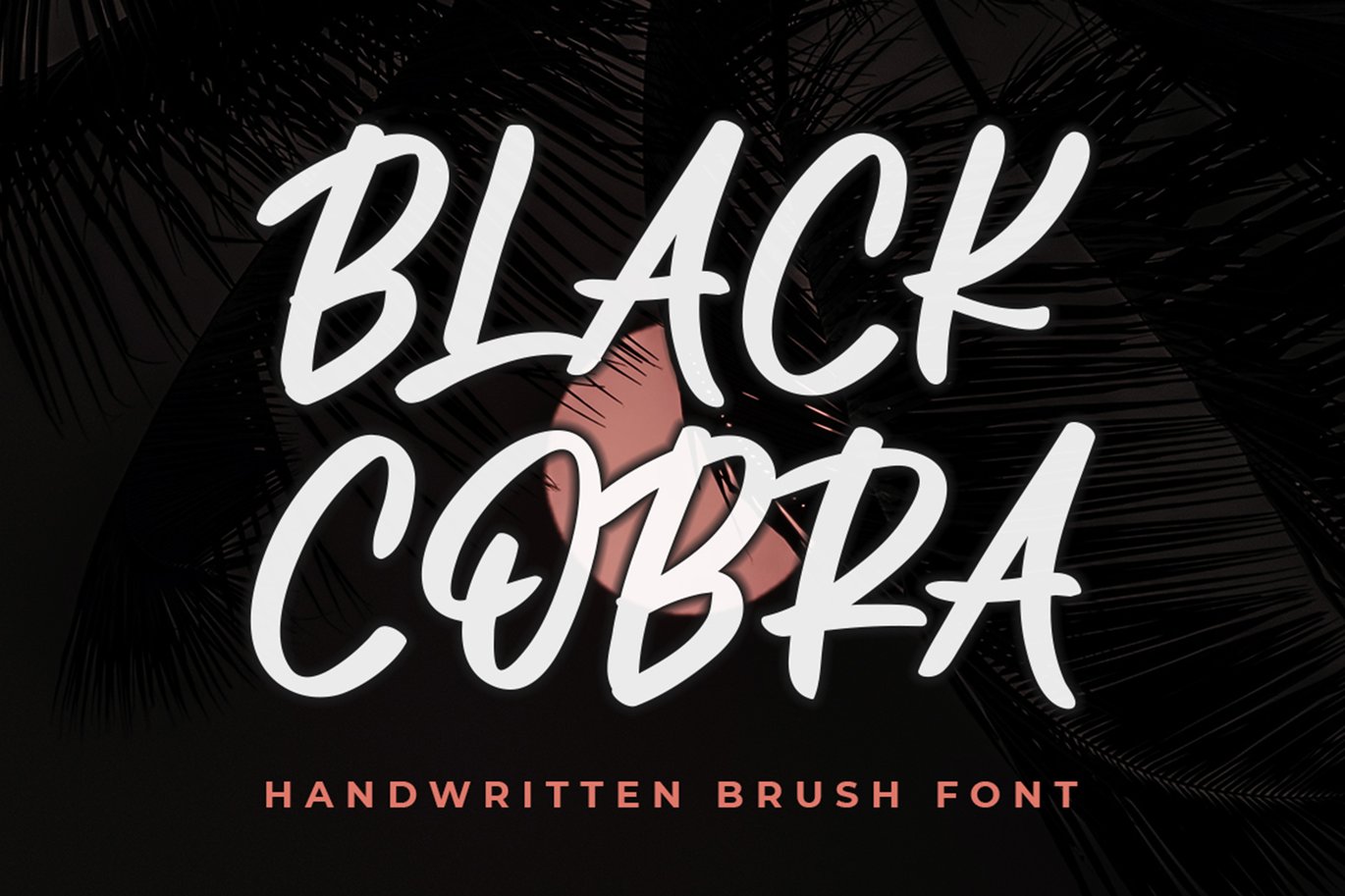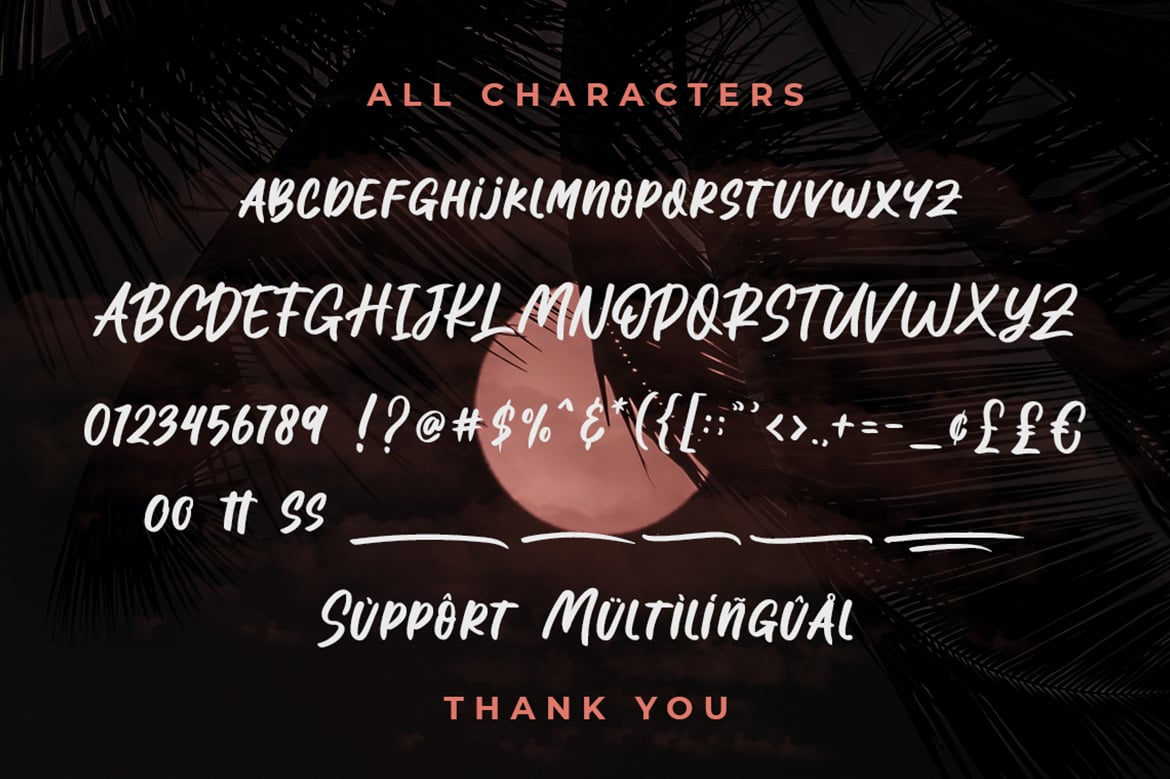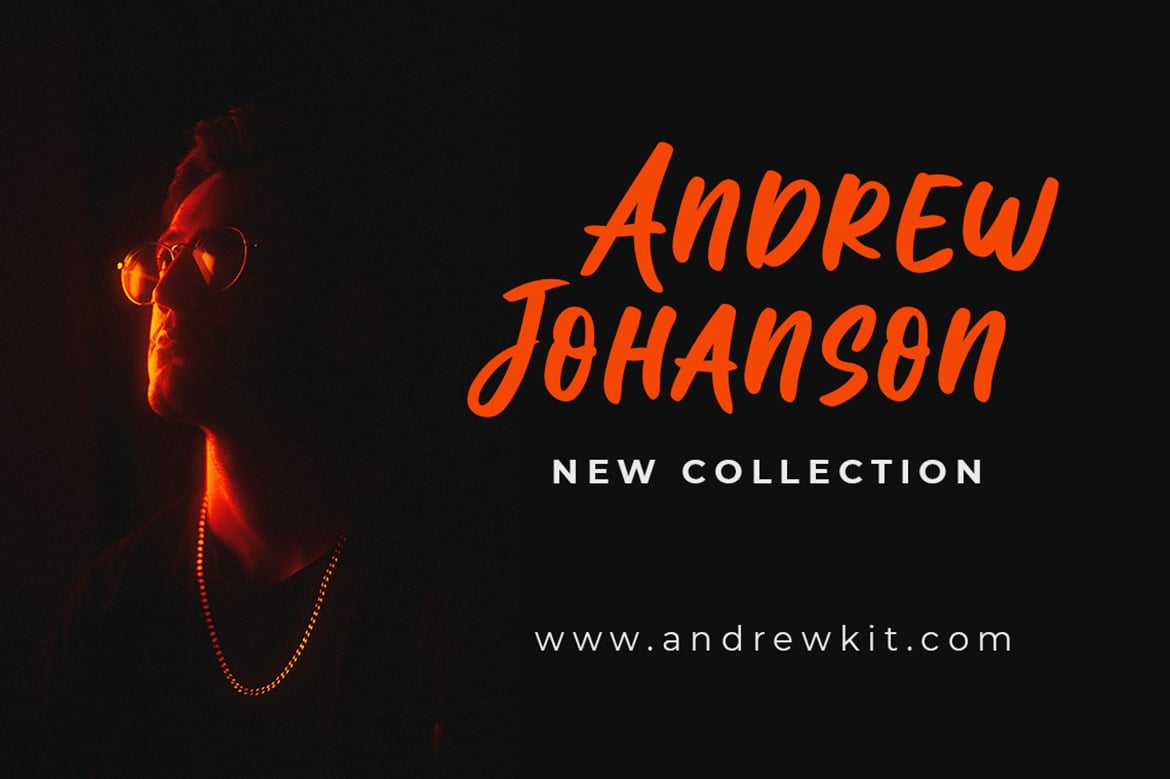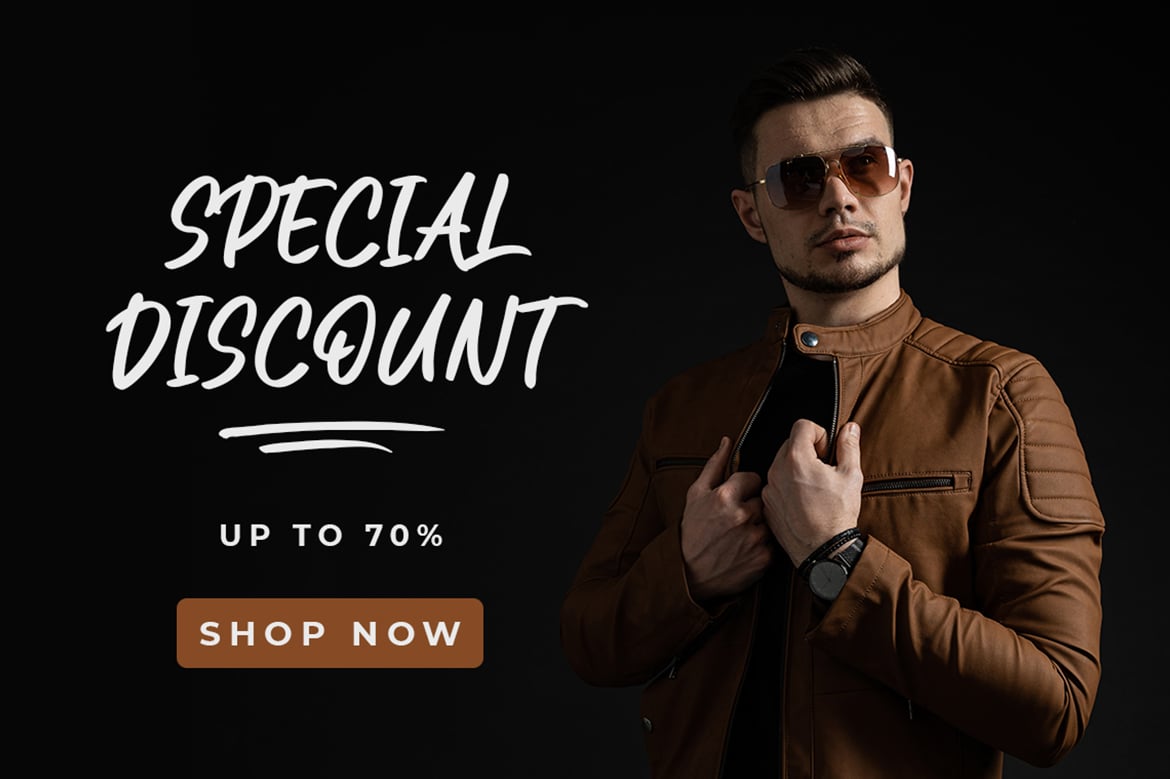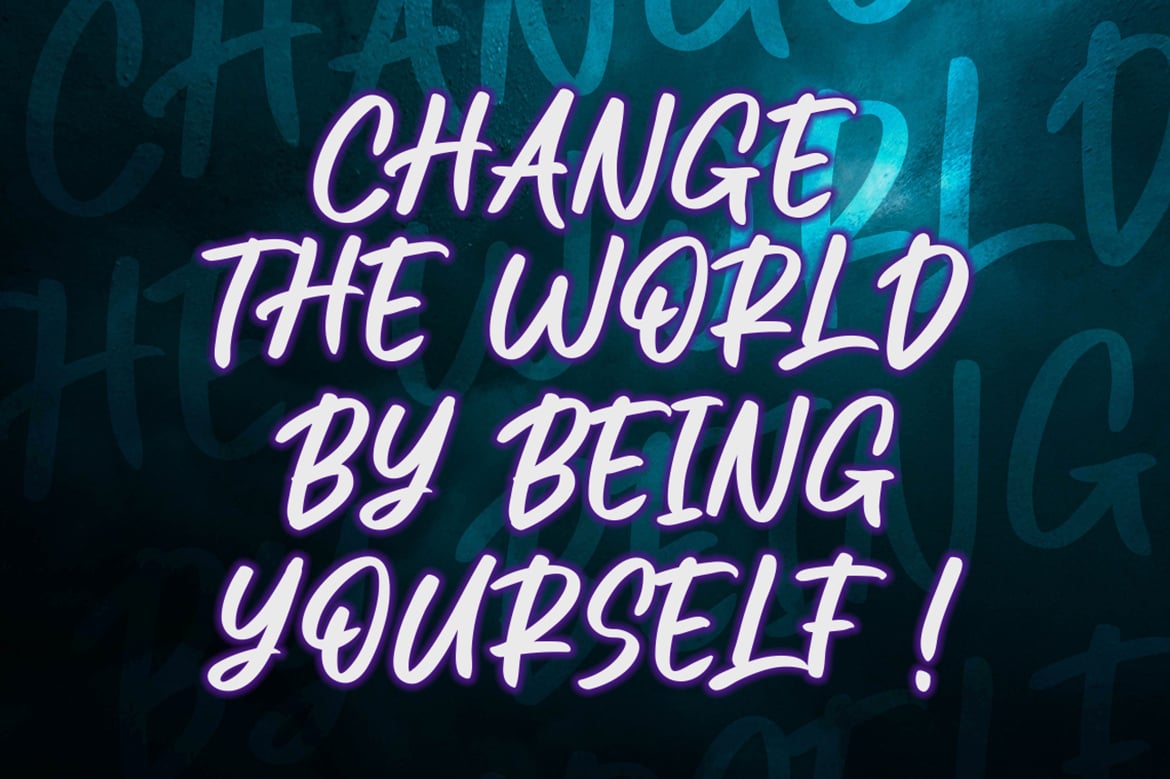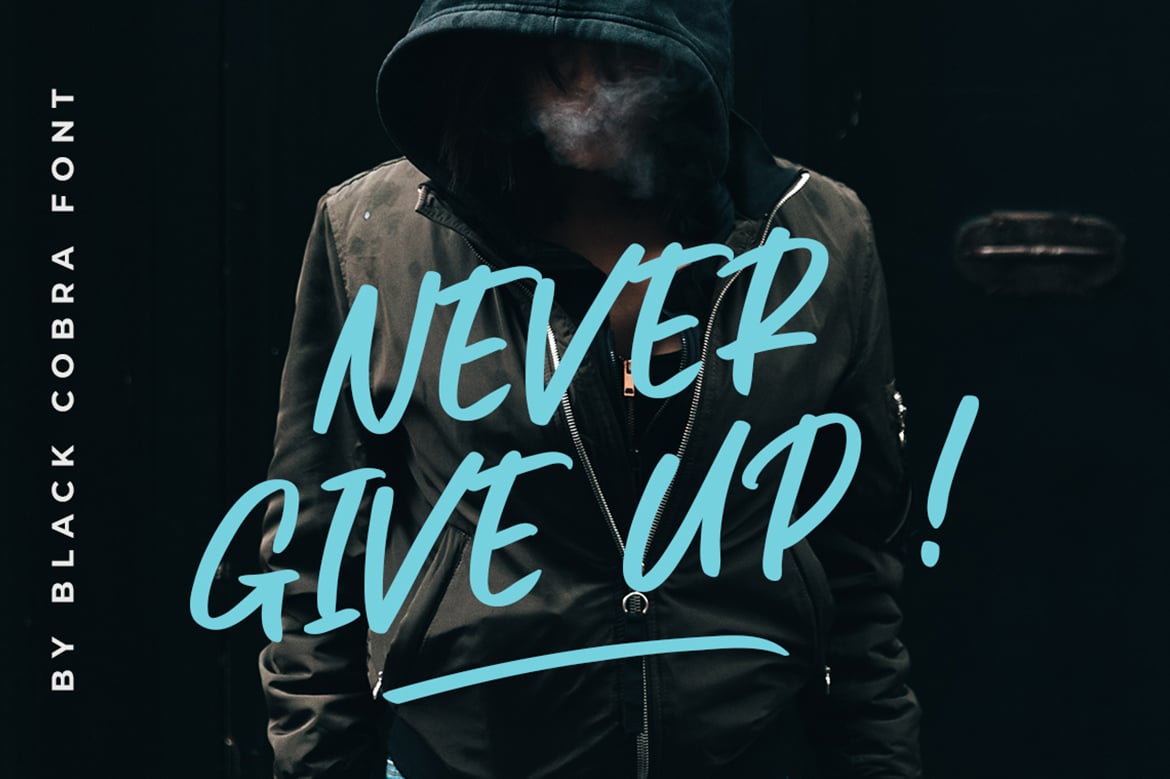
Black Cobra – Urban Lettering Font
Meet our new product called Black Cobra. Black Cobra is a font that has beautiful scratches like handwriting but is also very cool.
- Ligatures & Swash
- Number & Punctuation